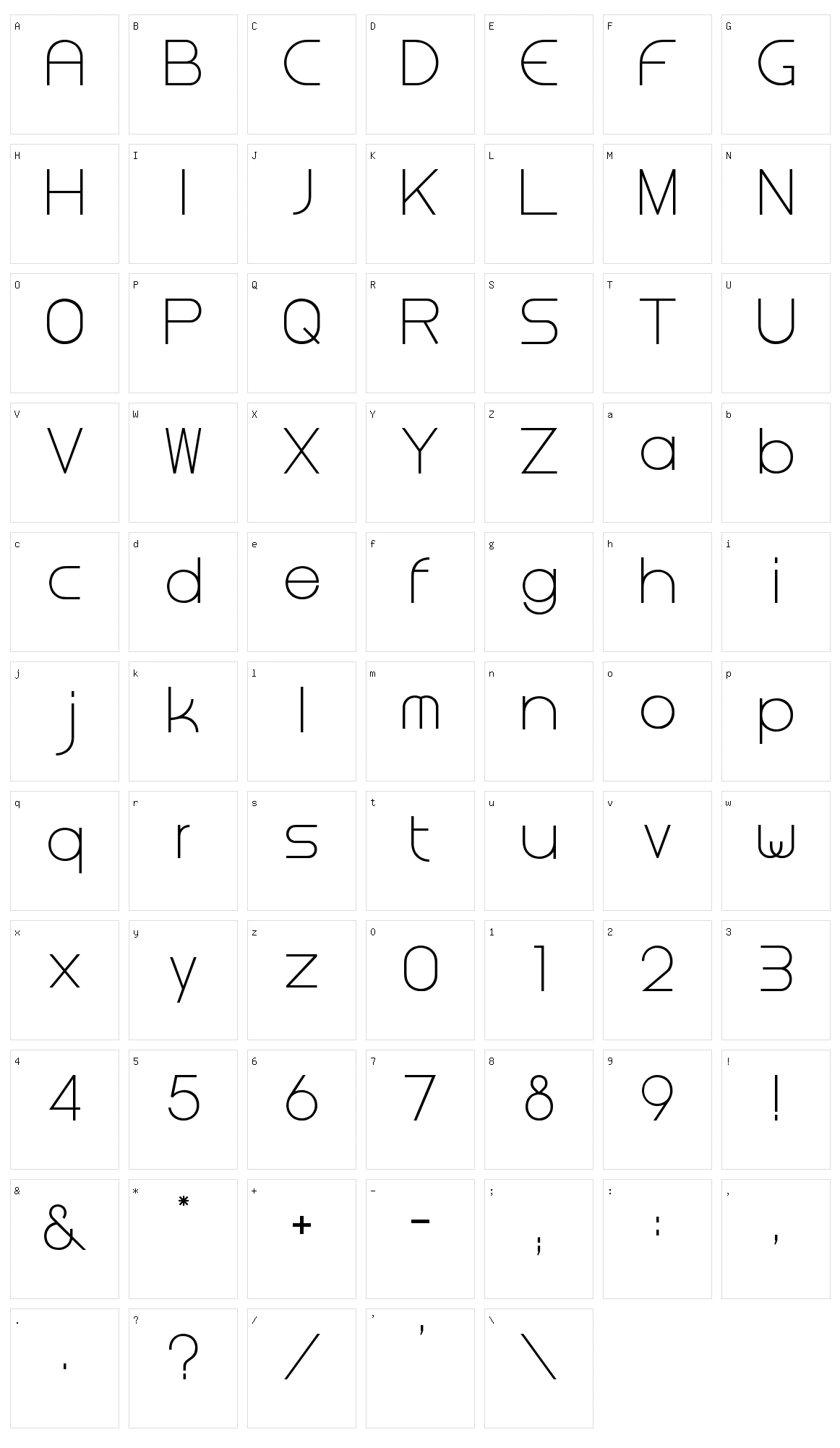
Note#2: This typeface is ideal for logos and general design.
It isn't very suitable to be used with word-processors as it lacks some symbols and letters.